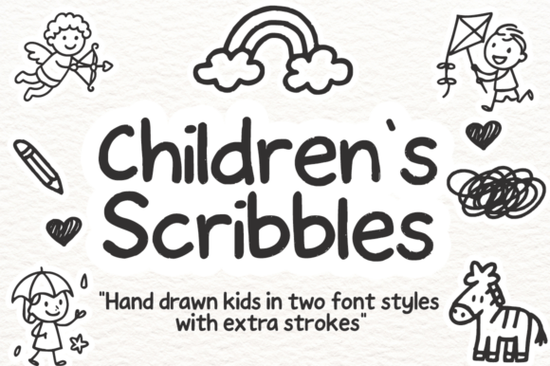
If you're looking for a playful, hand-drawn font that feels authentically childlike not overly polished or cartoonish you’ll love the Children’s Scribbles Font. It’s designed to mirror the joyful imperfection of early handwriting: slightly uneven, round, light, and full of gentle charm. Unlike many “kids” fonts that lean into bold outlines or exaggerated bounce, this one captures the quiet magic of a child’s first attempts at letters think crayon-on-paper energy, not clipart flash. It’s especially well-suited for creators who make educational printables, classroom resources, nursery decor, or kid-focused craft projects.
What makes this font work so well for real-life projects?
First, it’s highly legible at small sizes even on flashcards or worksheet headers without losing its handmade feel. The lowercase letters have soft curves and open counters, and the uppercase characters keep a friendly, unforced rhythm. Second, the built-in doodle elements (hearts, stars, little animals, clouds, and stick-figure kids) aren’t just decorative extras they’re carefully spaced and scaled to sit naturally alongside text. You can type a sentence and add a star after “fun!” or tuck a tiny cloud beside “weather” without needing to layer graphics manually.
This isn’t just a novelty font. Teachers use it for behavior charts and reward certificates. Small business owners creating custom birthday stickers or party invites find it helps their designs stand out in crowded Etsy listings. Print-on-demand sellers appreciate how well it translates to fabric prints, mugs, and kids’ apparel especially when paired with simple line art or watercolor backgrounds. And because it includes both uppercase and lowercase, numbers, punctuation, and multilingual accents (including Latin-based European languages), it’s practical for more than just English-speaking audiences.
How does it compare to other playful script fonts?
It’s lighter and more spontaneous than Wedding Nayla, which leans elegant and flowing great for invitations but less suited to preschool learning materials. It’s also more grounded and readable than Sundary Beach Duo, whose dual-weight style shines in branding but can feel busy next to illustrations or photos. Where Preppy Berry adds a cheerful, bouncy school spirit vibe, Children’s Scribbles offers something quieter and more intimate like a child whispering a secret in your ear rather than shouting across the playground.
Compared to Abigail, which has graceful swashes and a delicate calligraphic touch, or Belgia Calligraphy, with its refined ink-trail elegance, Children’s Scribbles intentionally avoids flourish. Its strength is in simplicity: no dramatic entry strokes, no trailing tails just honest, approachable letterforms that invite interaction. That’s why it works so well for tracing worksheets, name tags, or early literacy posters where clarity matters as much as charm.
Where do designers actually use it?
- Educational printables: sight word cards, alphabet tracing sheets, emotion charts, and themed activity packs (e.g., “Ocean Animals” or “Community Helpers”)
- Classroom decor: growth mindset posters, daily schedule boards, name labels for cubbies or folders
- Kid-focused events: birthday party banners, baby shower signs, library storytime flyers
- Craft and sticker design: vinyl cut files for kids’ planners, printable sticker sheets, DIY greeting cards
- Nursery and playroom styling: framed quotes, growth charts, personalized wall decals
One thing to keep in mind: because it mimics natural handwriting, it’s best used at medium-to-large sizes for headlines or short phrases. For long blocks of body text like a full children’s book manuscript you’d still want a clean sans-serif or serif companion font. But as a focal point? It delivers warmth and personality without feeling forced.
A quick checklist before you download
- ✅ Confirm your software supports OpenType features (most modern design apps do Illustrator, Canva Pro, Affinity, Cricut Design Space)
- ✅ Test legibility at your intended size try printing a sample phrase at 24pt and 48pt